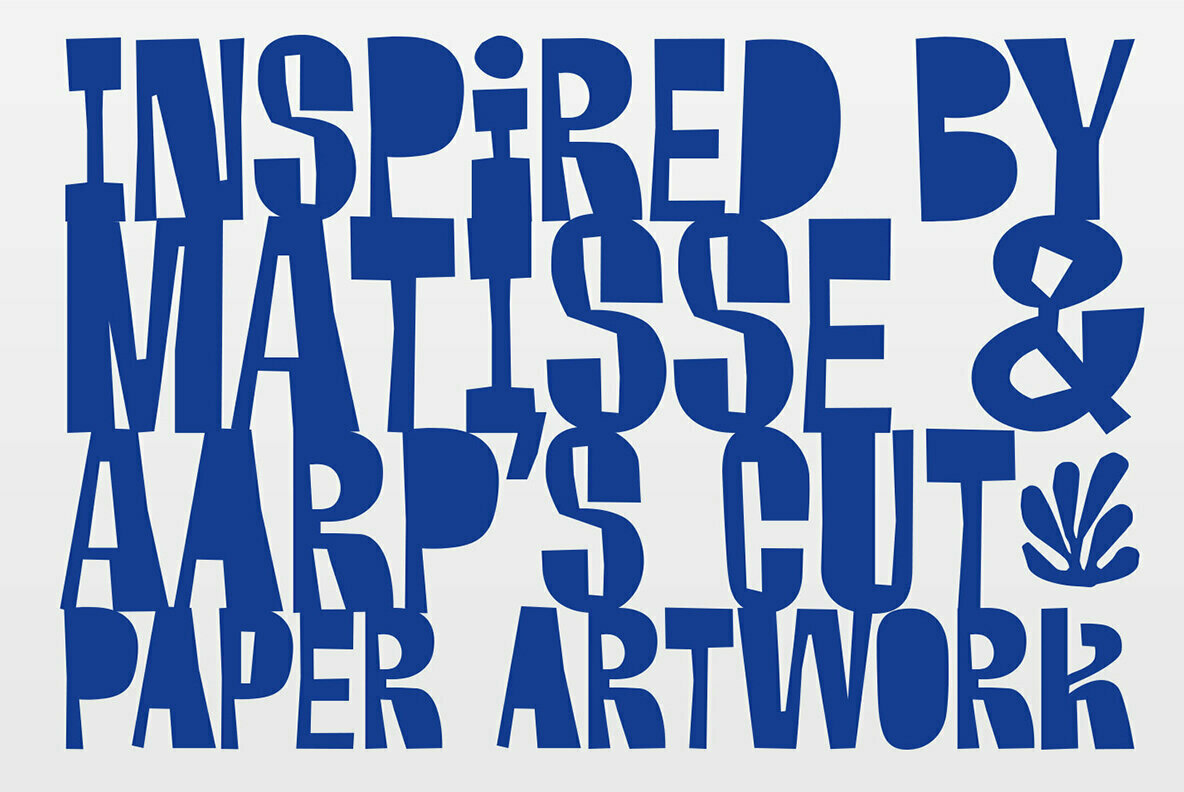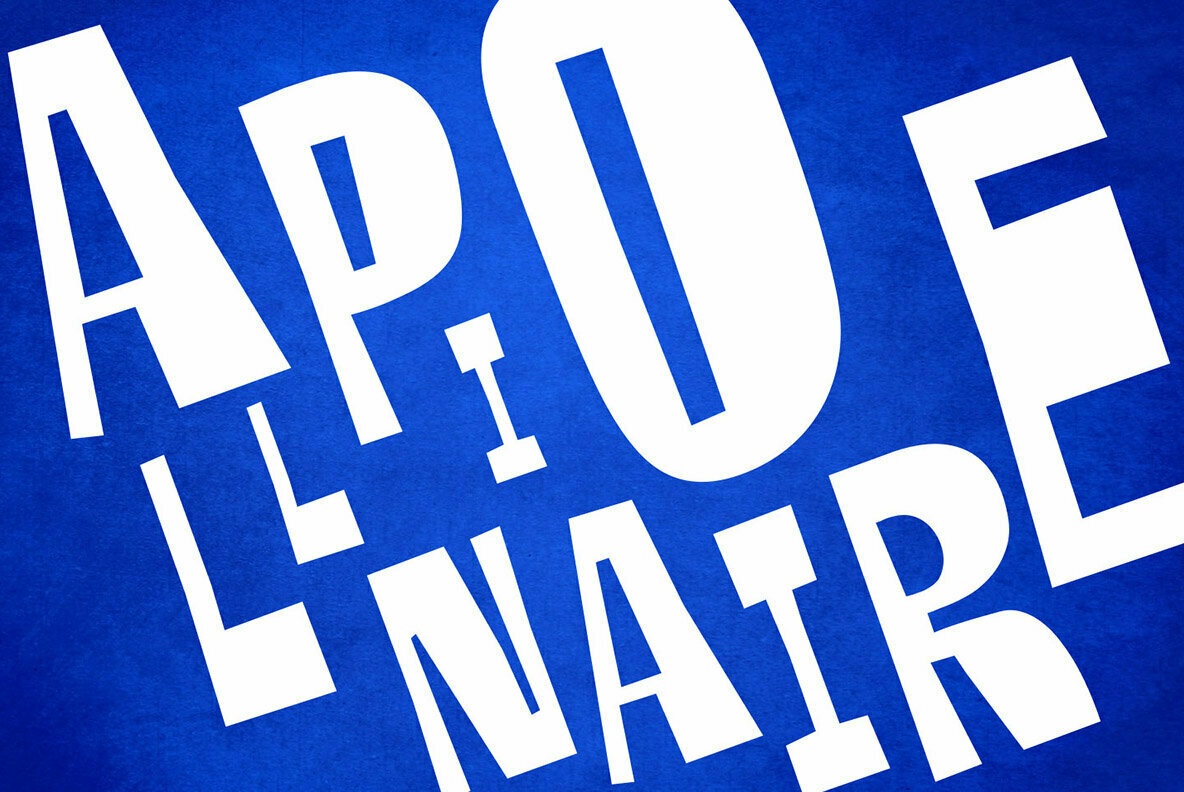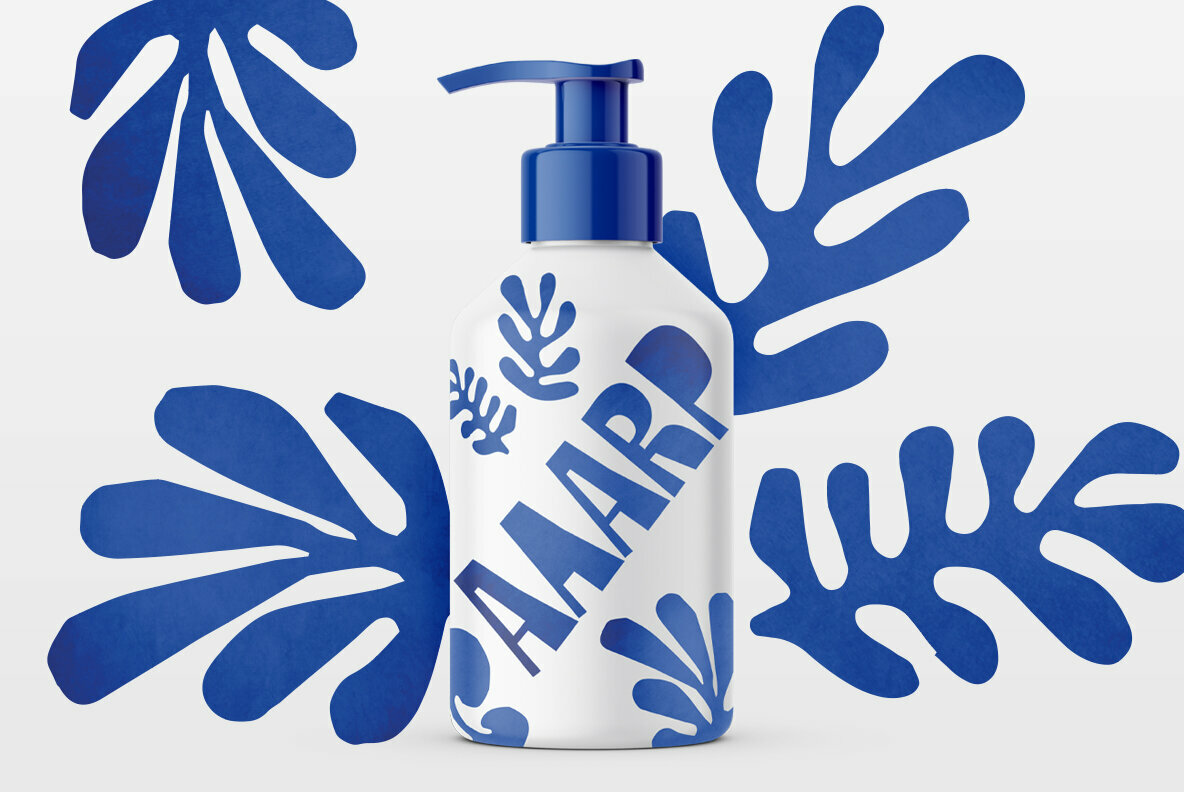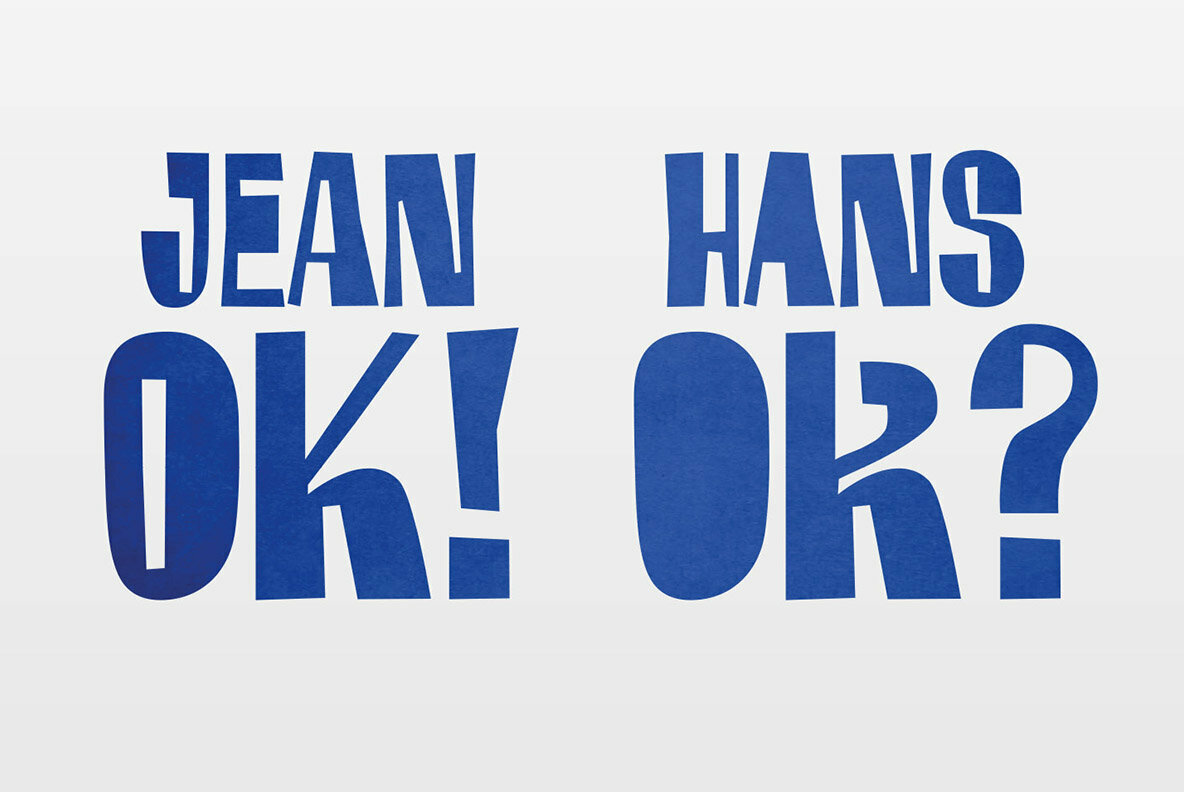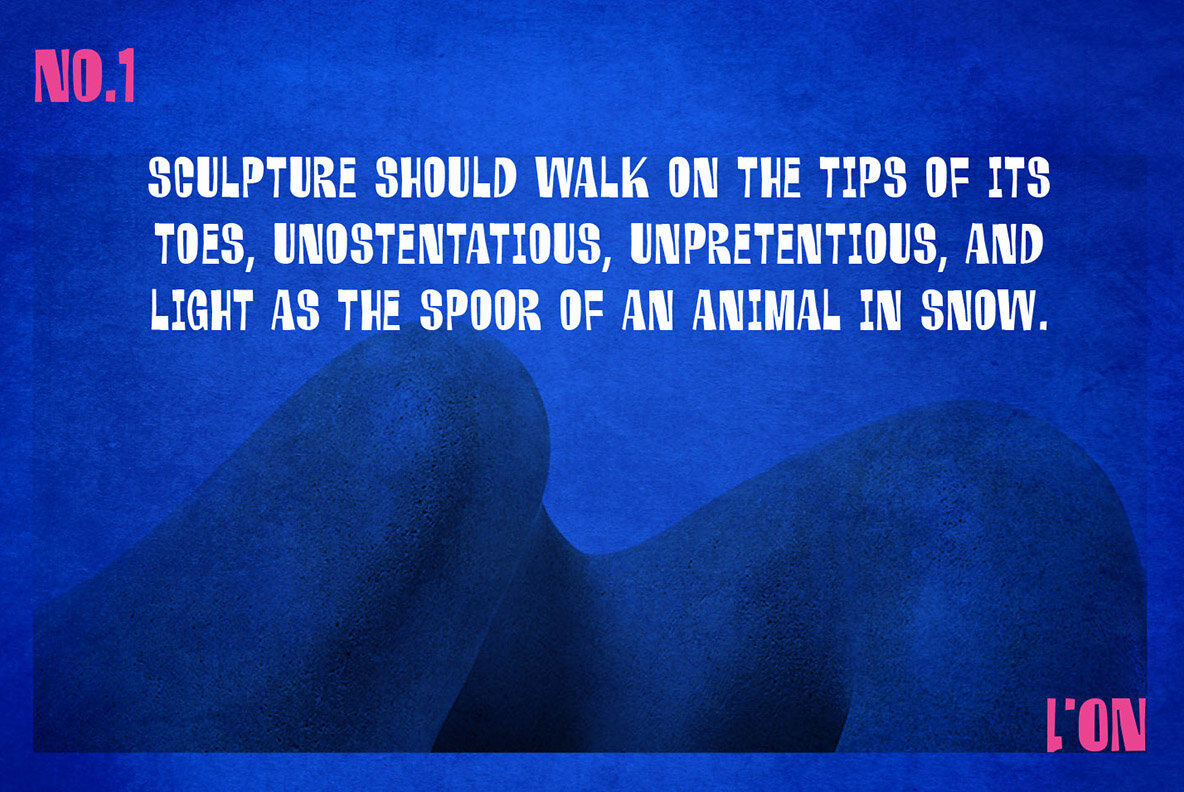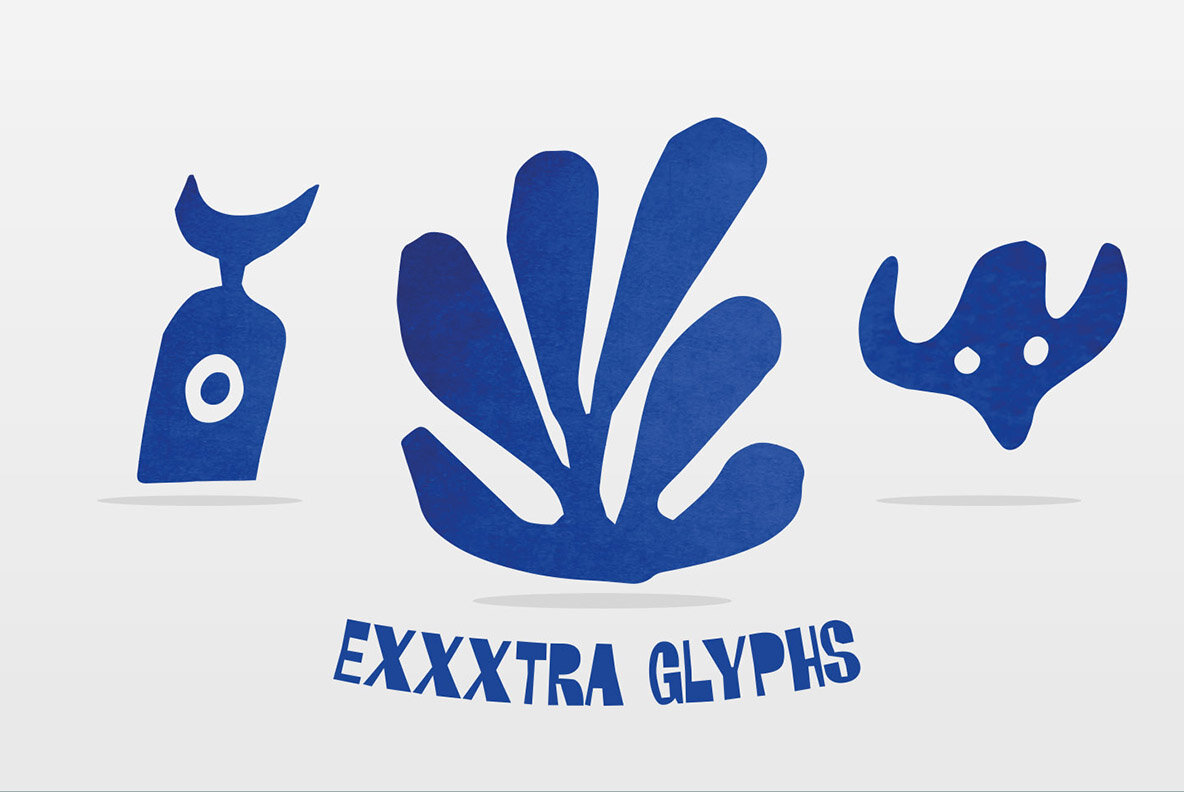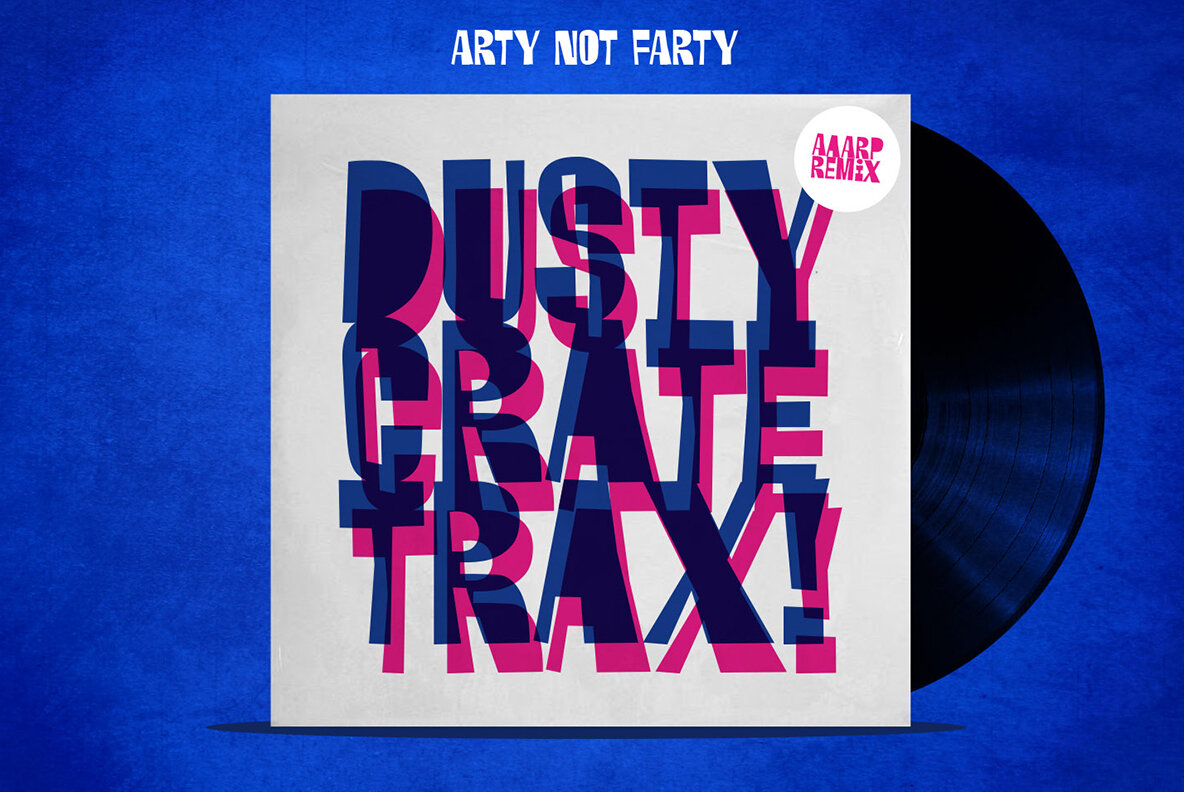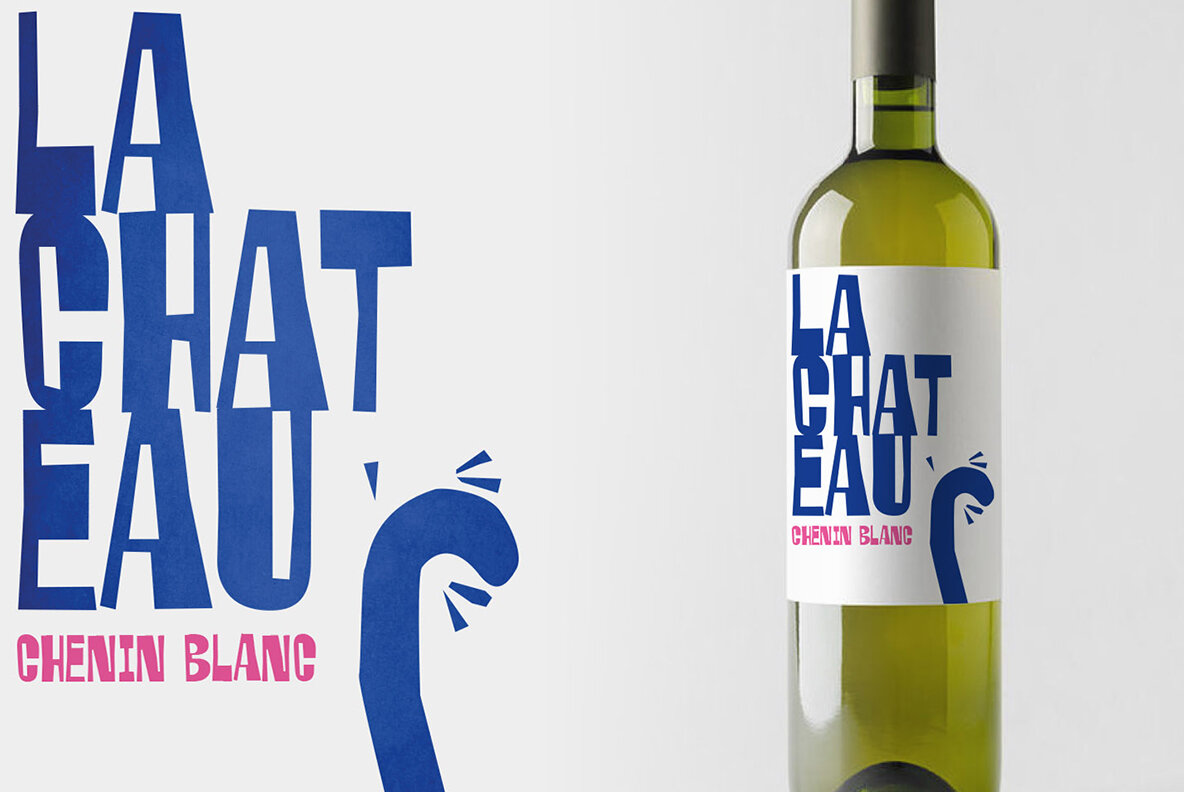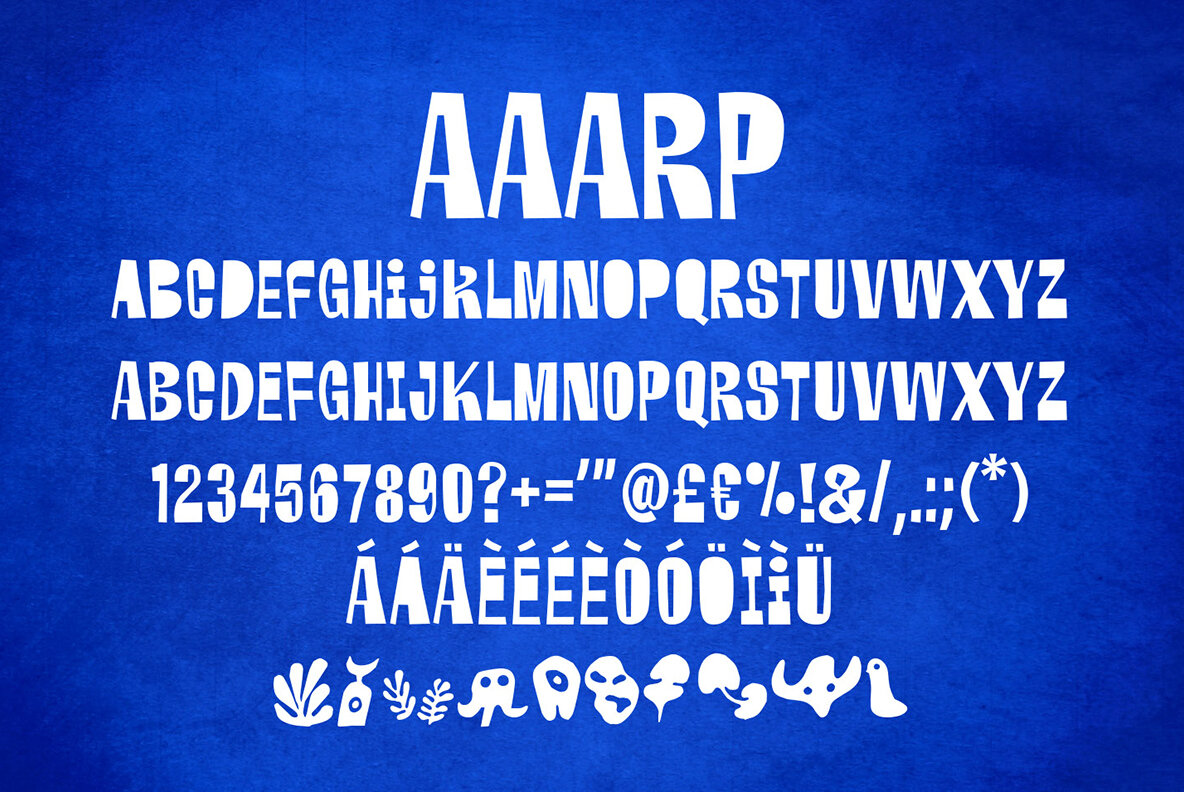
Aaarp Font
Aaarp
Aaarp's an arty farty cut paper display font - inspired by Jean Arp & Henri Matisse’s amazing work. Get creative with extra glyphs and shapes... Aaarp also has alternative letters so you can make all your designs look unique.